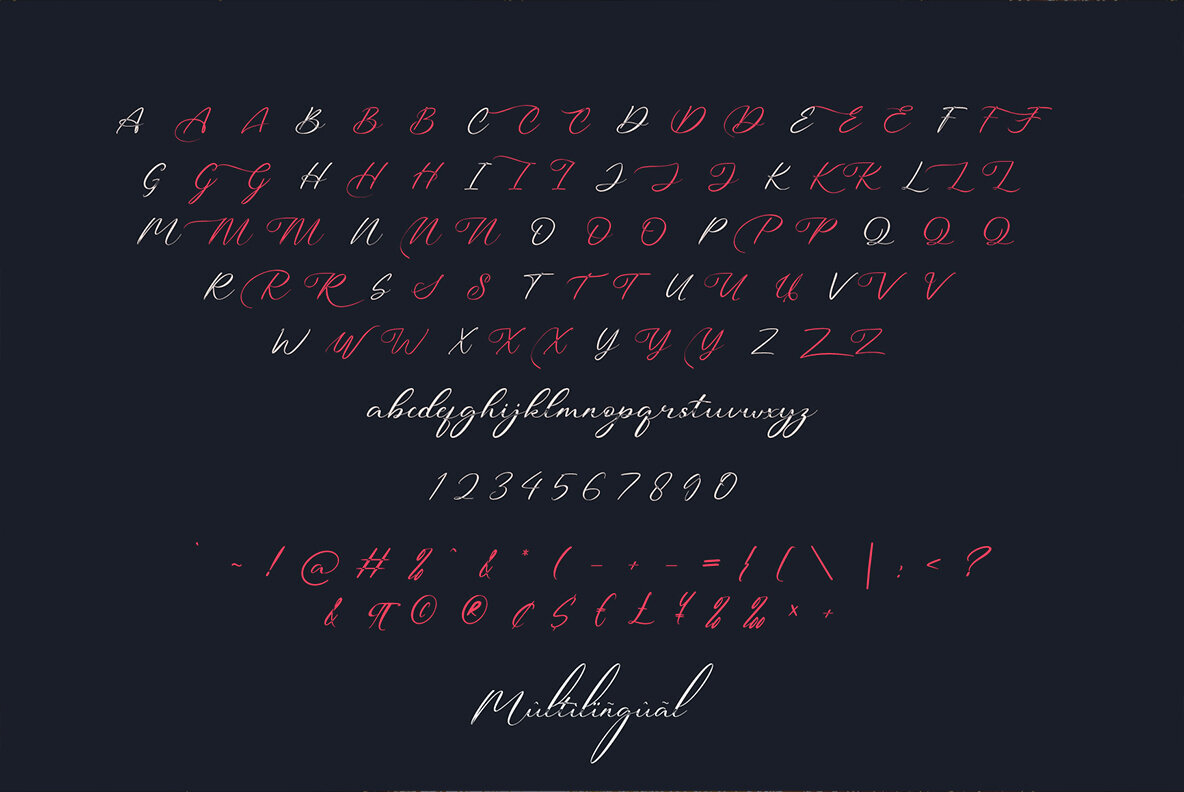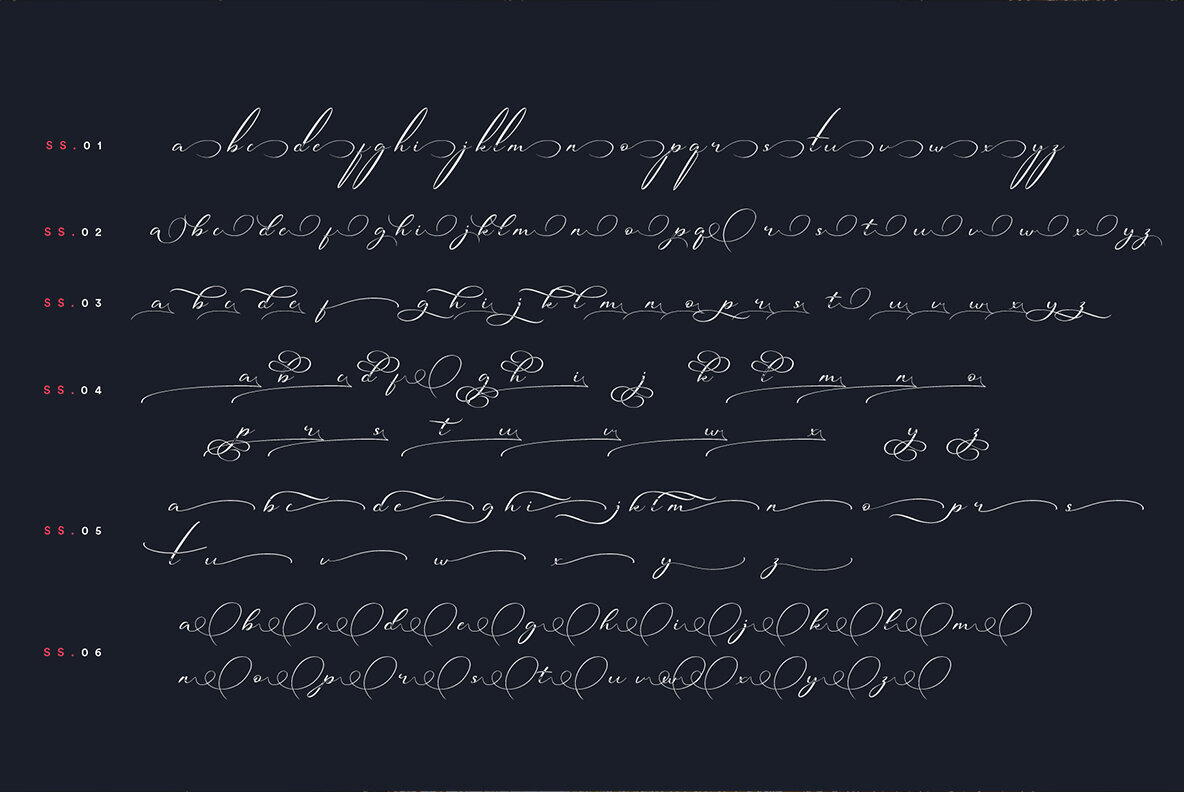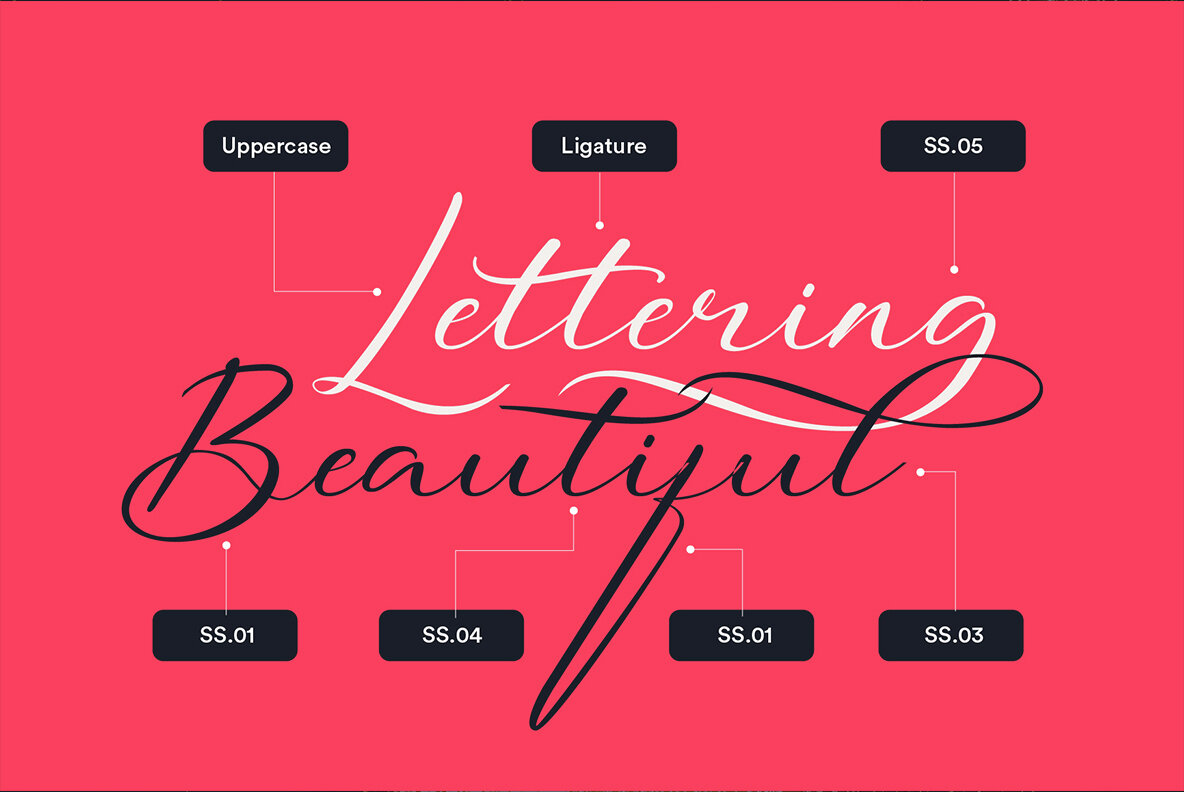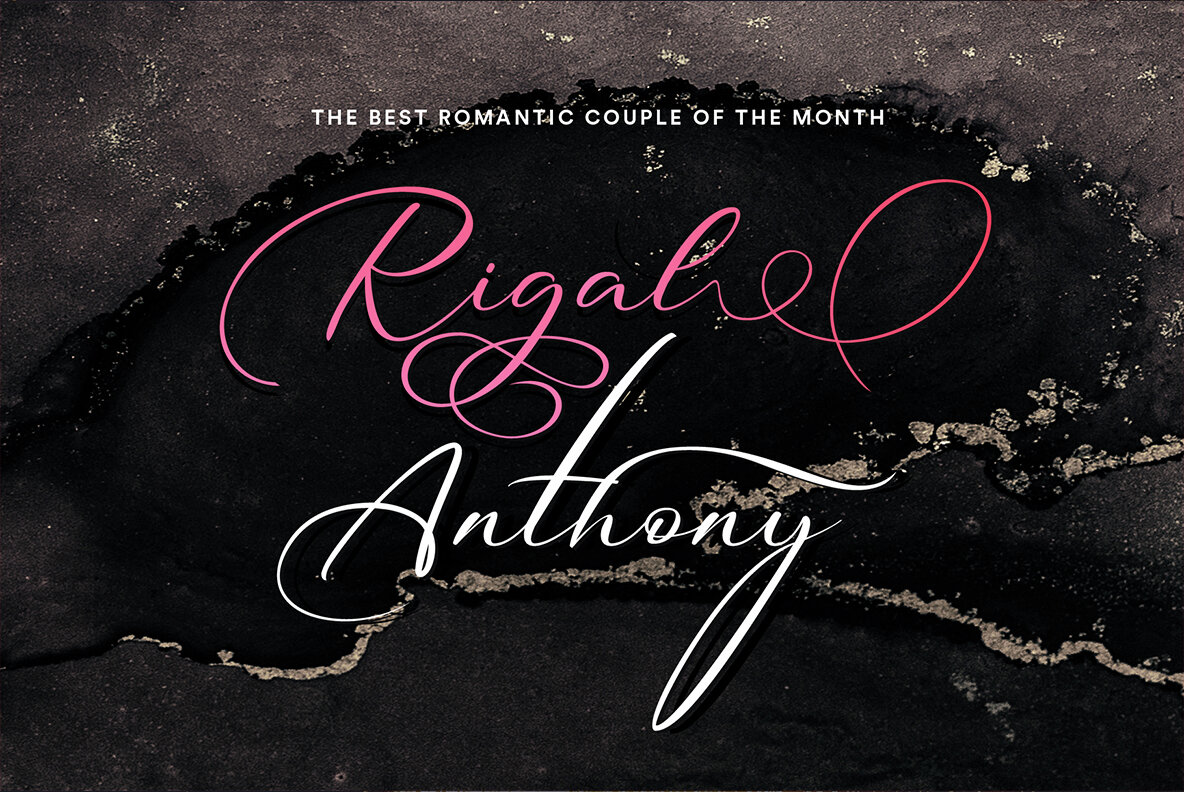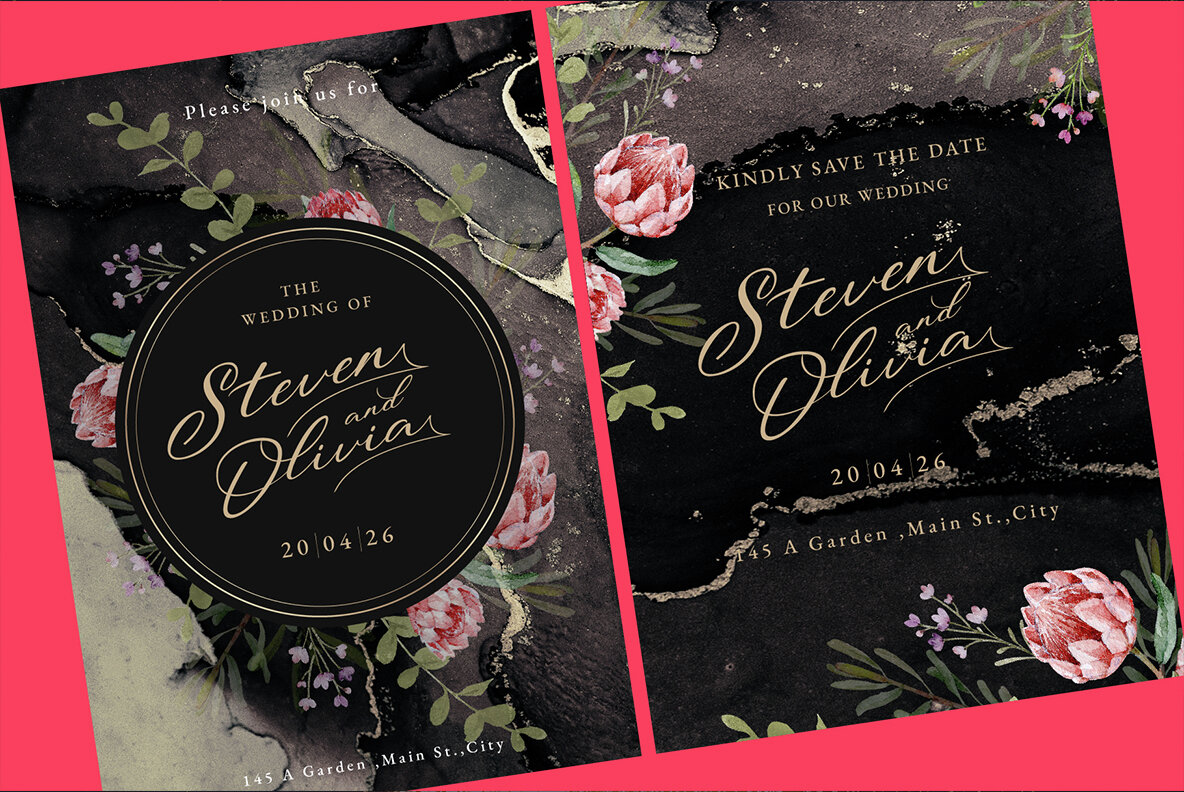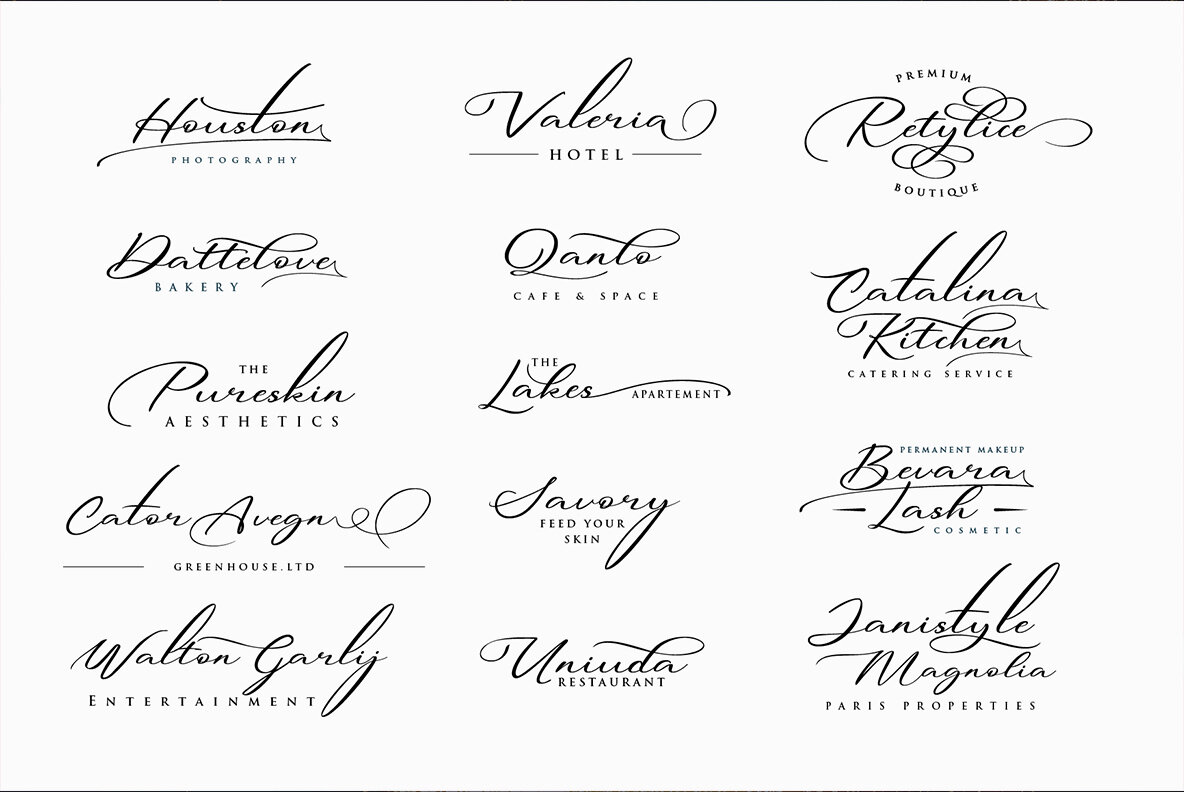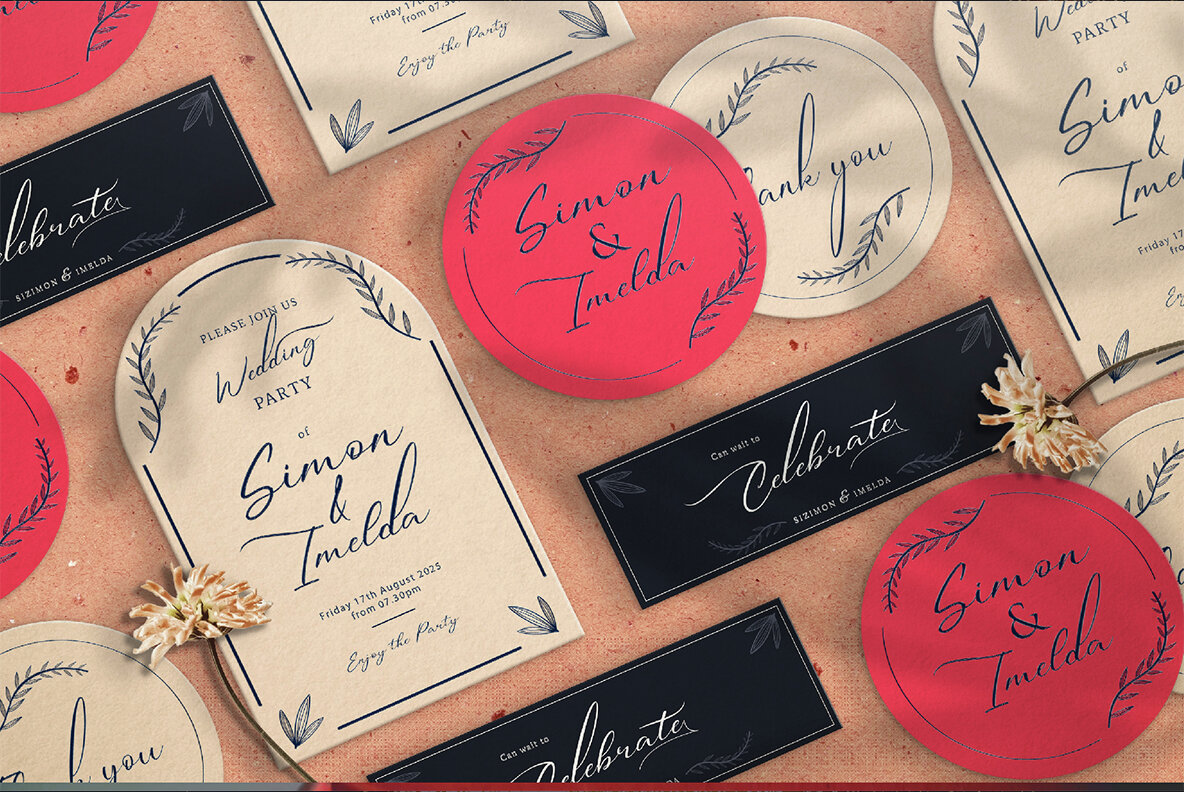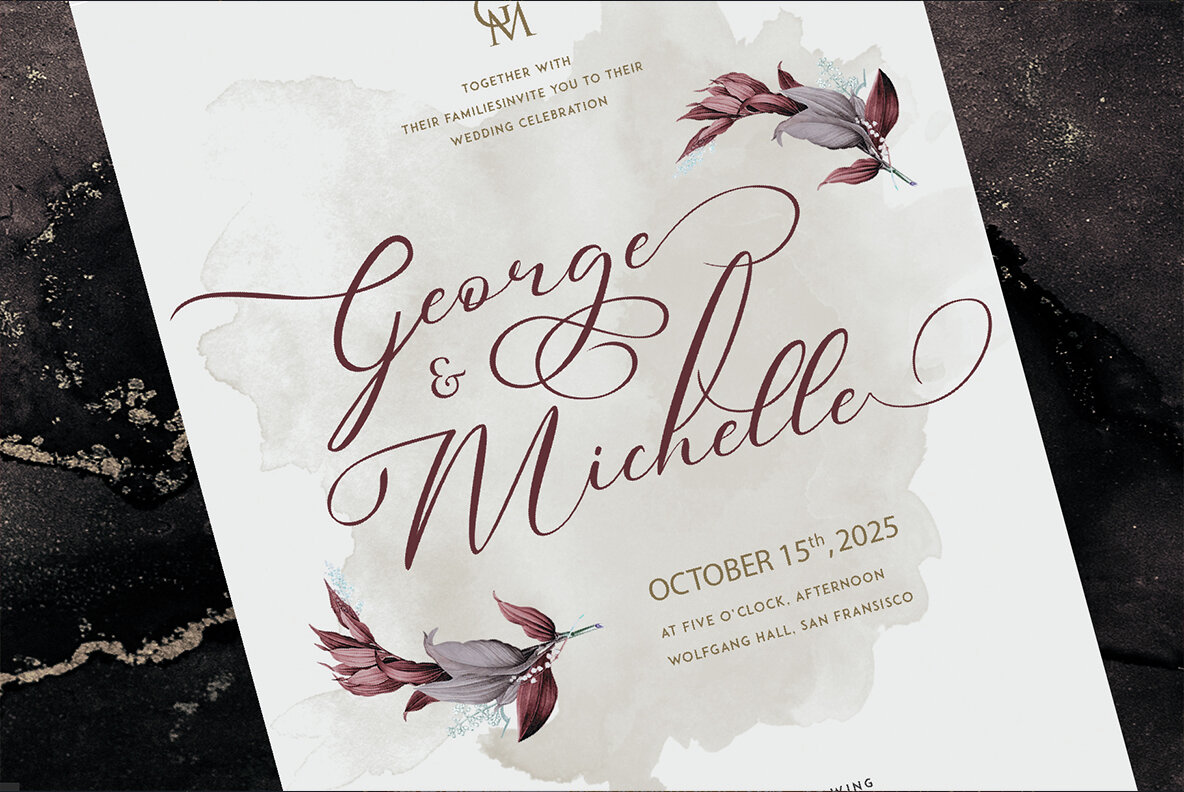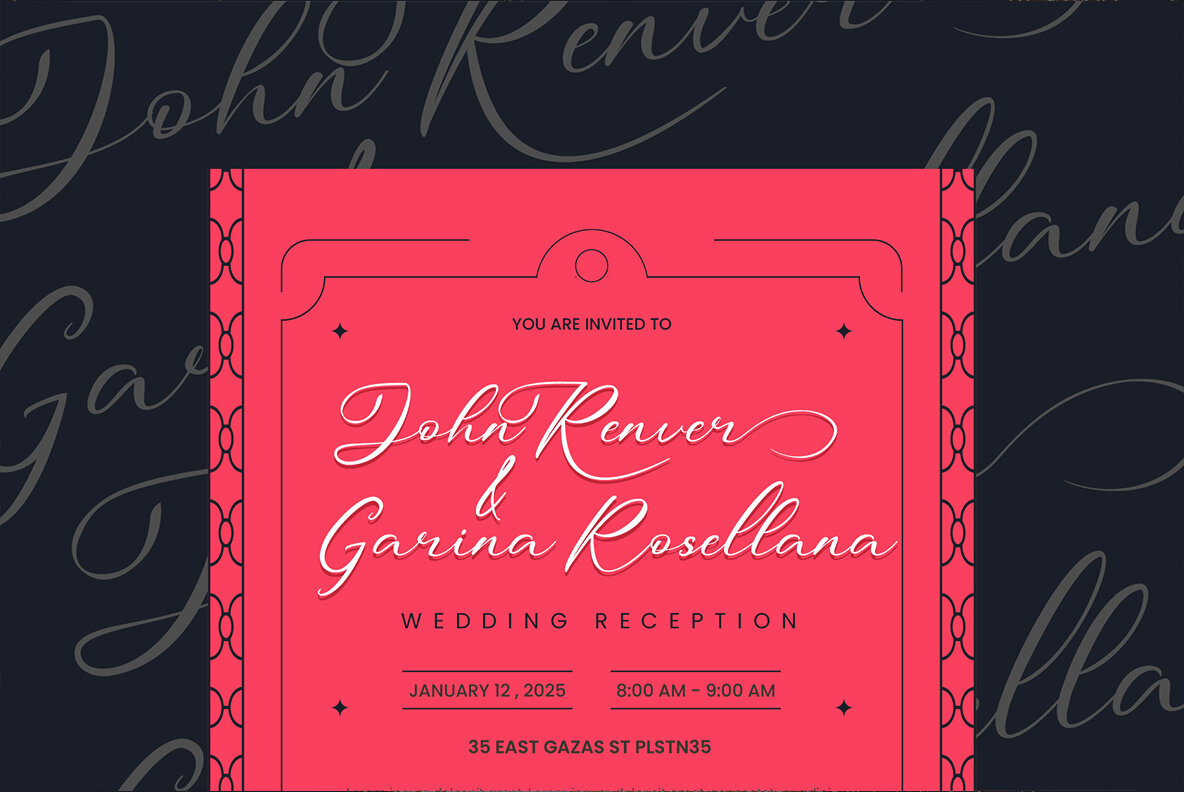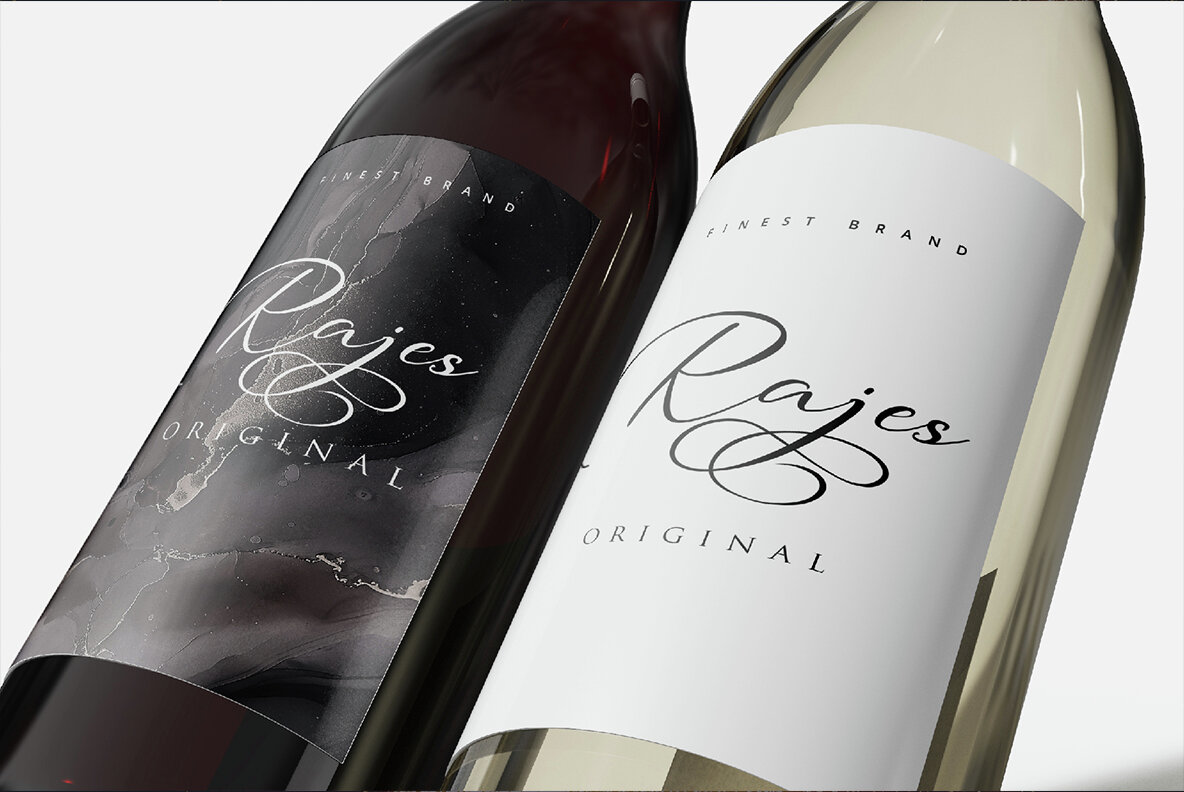
Michand Script Font
Michand Script
Michand Script is a modern calligraphy font offering elegance and style for design projects. Perfect for wedding invitations, save the date cards, feminine branding, logos, postcards, letterpress addresses, titles, and more.Michand Script: Elegant Modern Calligraphy